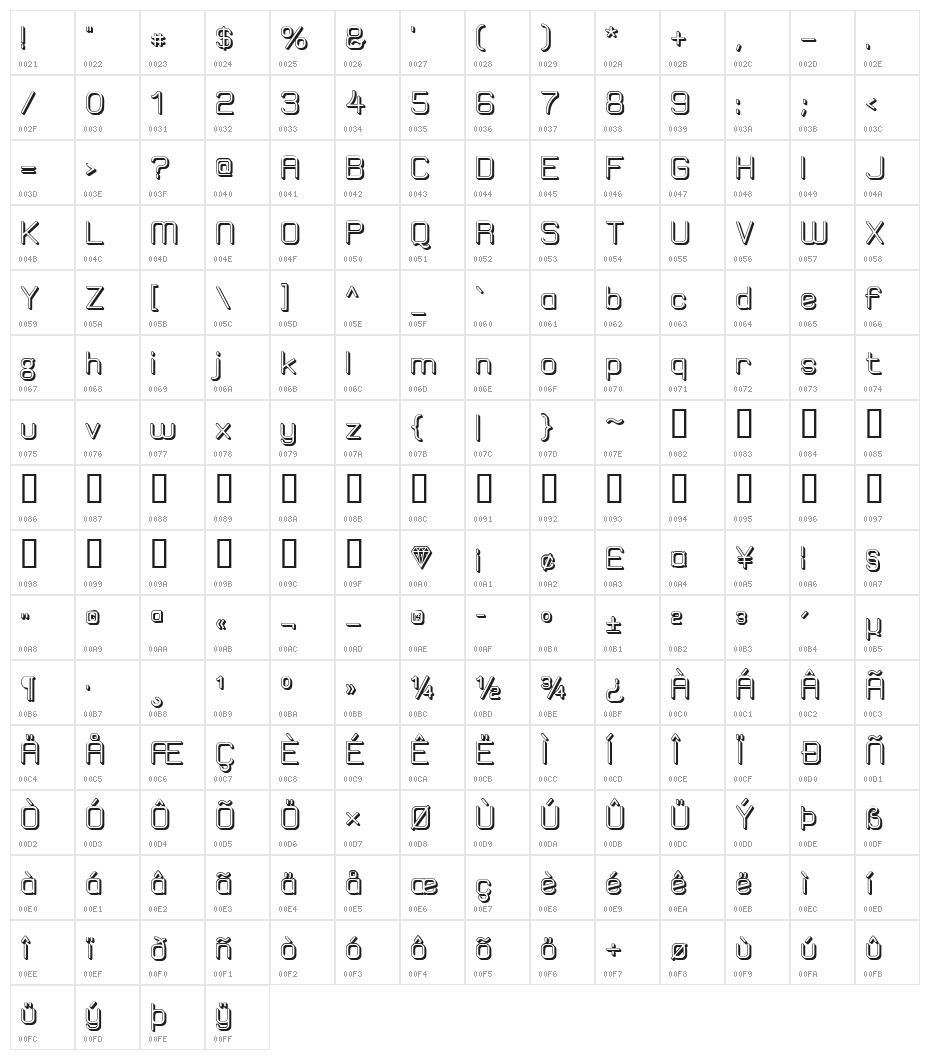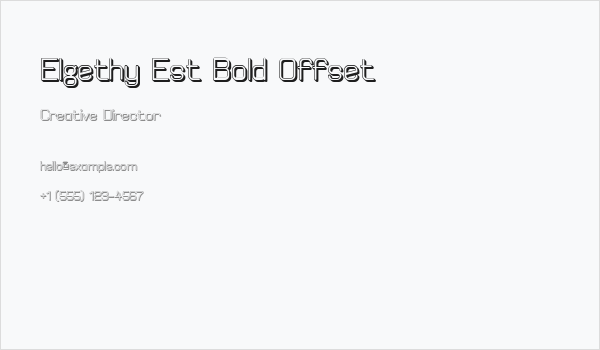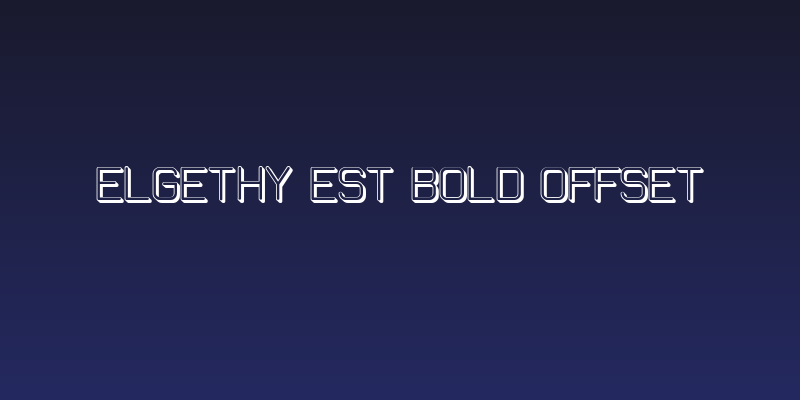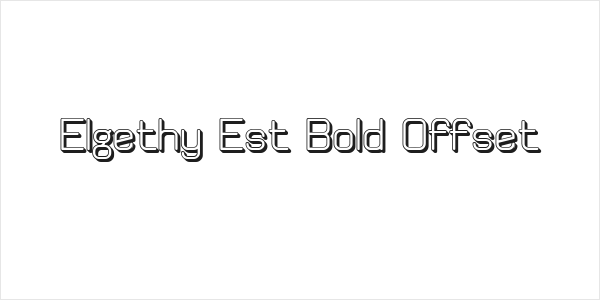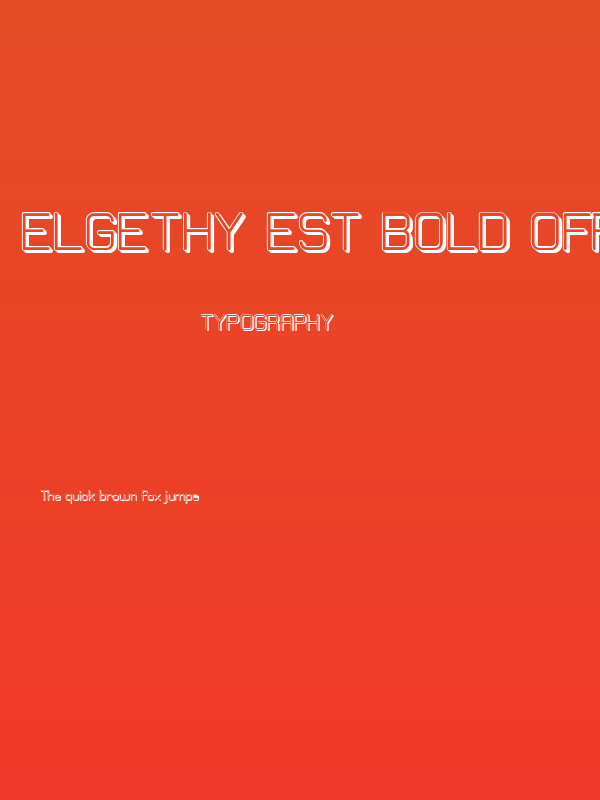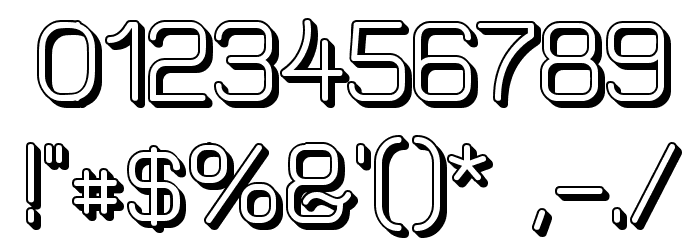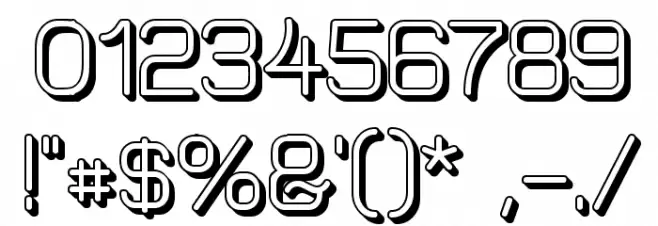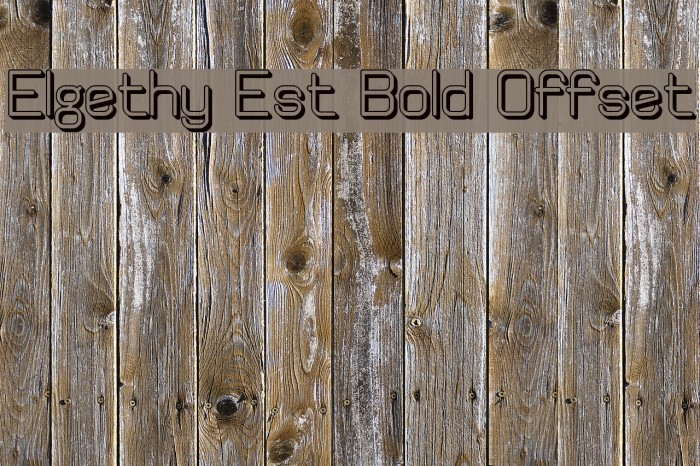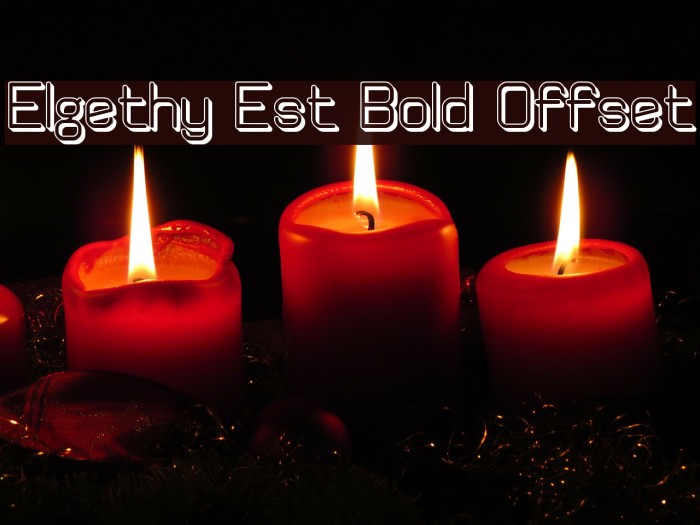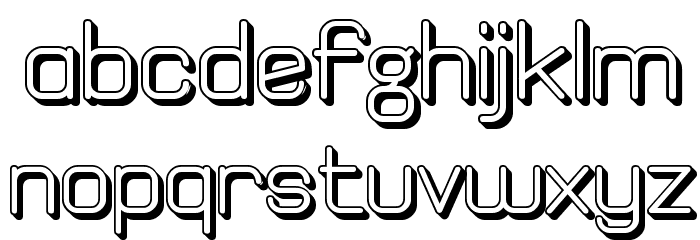
Elgethy Est Bold Offset Font
Elgethy Est Bold Offset Description
This font features a bold, offset design with a modern and futuristic aesthetic. The characters are outlined with a double-line effect, creating a sense of depth and dimension. The uppercase and lowercase letters maintain a consistent style, with rounded edges and a geometric structure. The numerals and special characters follow the same design principles, ensuring uniformity across all glyphs. This font's unique style makes it stand out, offering a visually striking appearance that is both contemporary and versatile.
| Proposed Projects | Ideal for digital designs, futuristic branding, tech-related projects, and eye-catching headlines. |